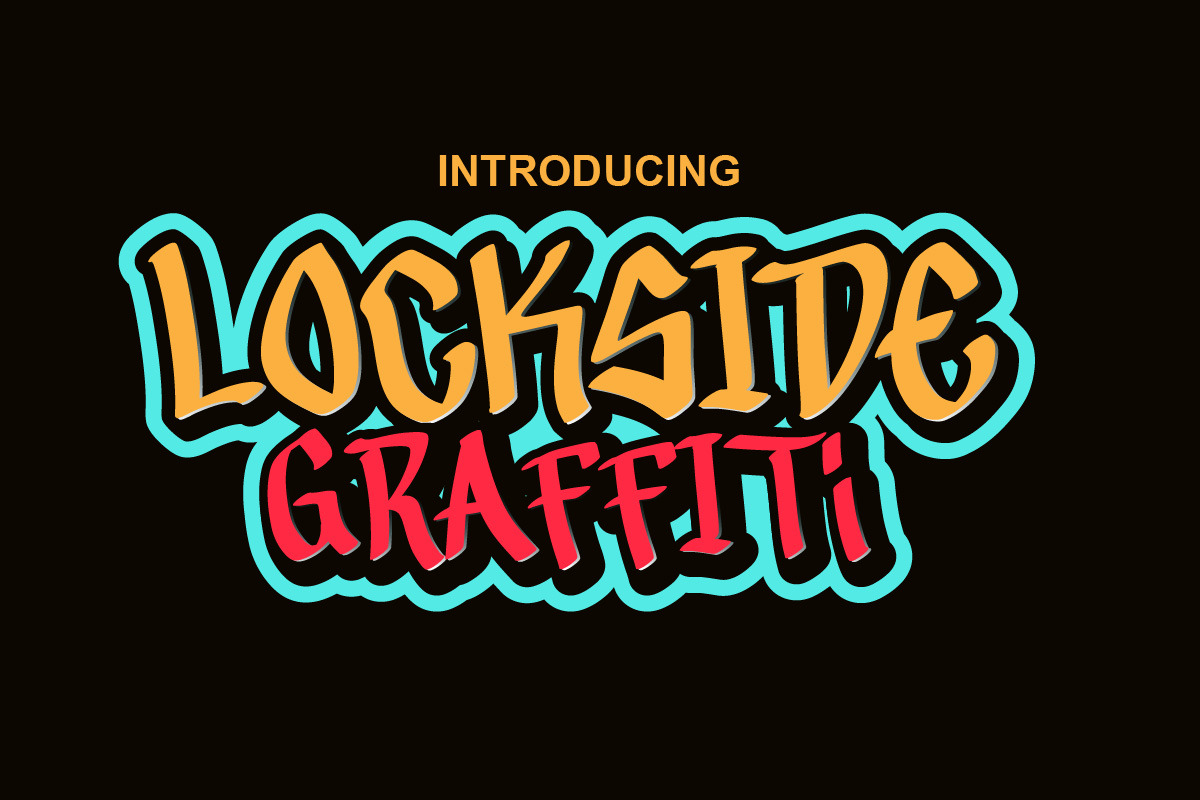
Lockside Graffiti Display Font
Lockside font is our new item that suitable for your Posters.
Great for Logo, Poster, Sticker, Jersey, Invitation Card, Brochure, etc.